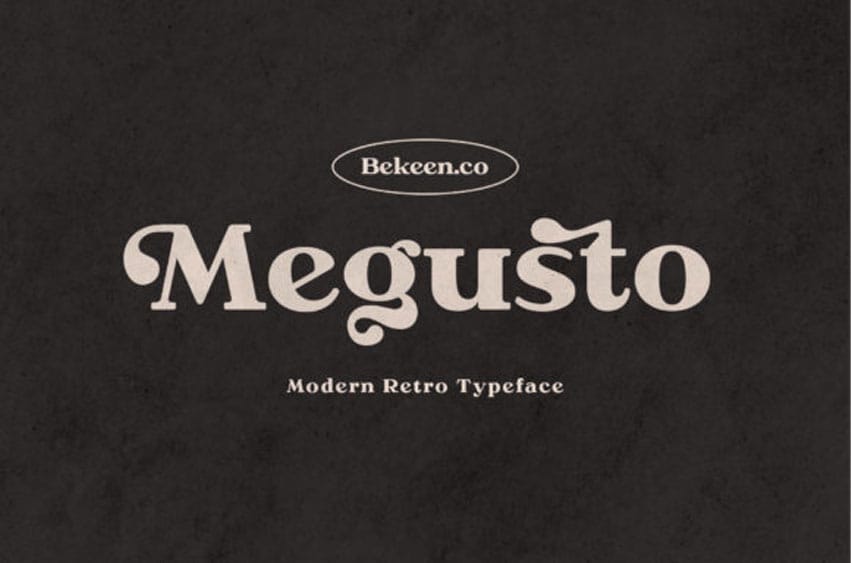
Megusto Font is a modern retro serif font inspired by the Italian godfather.
It will add a beautiful touch to watermarks, logos, product packaging, marketing materials, and more!